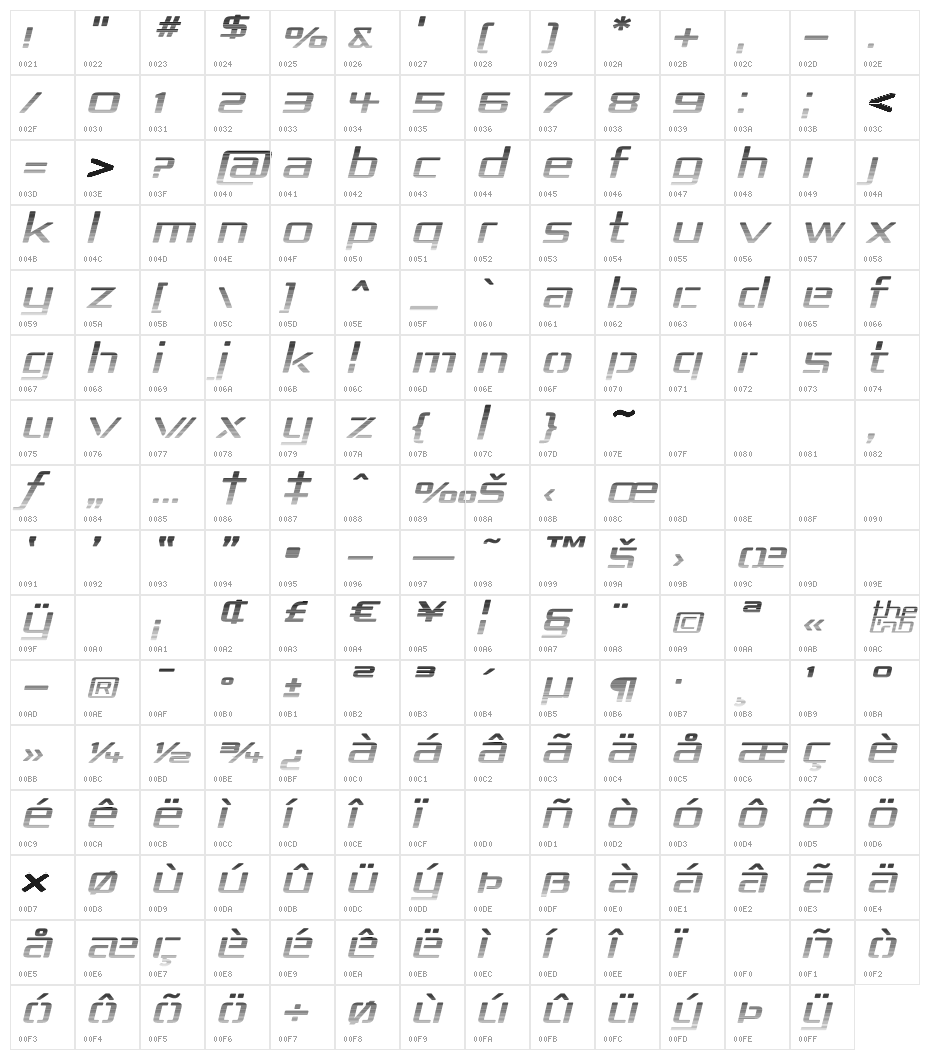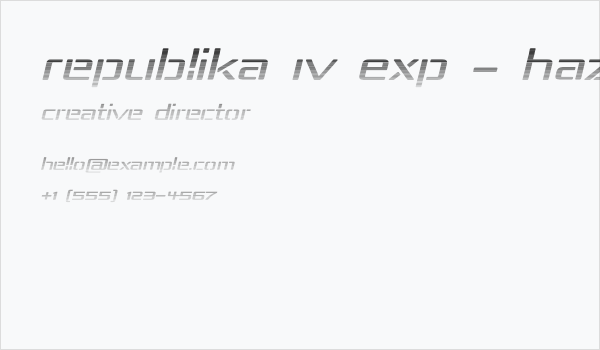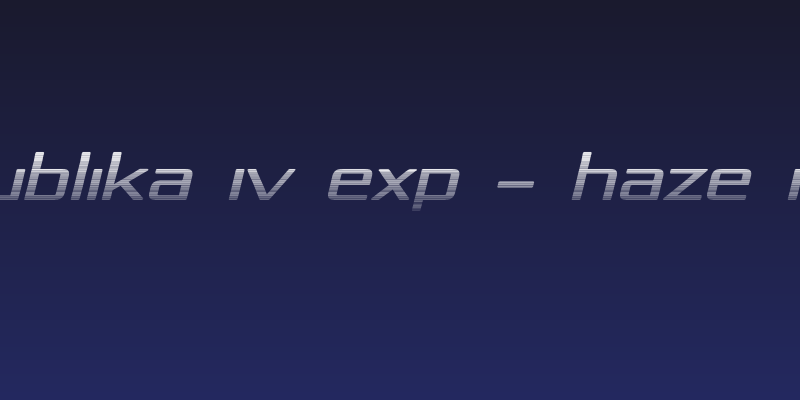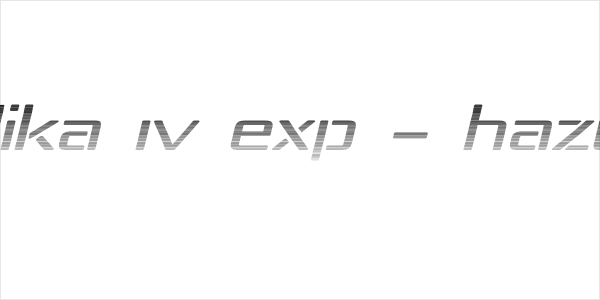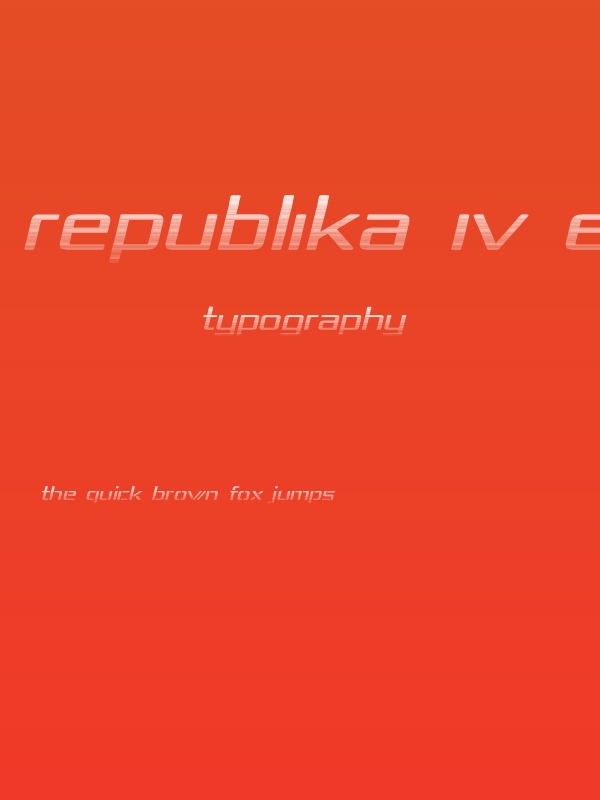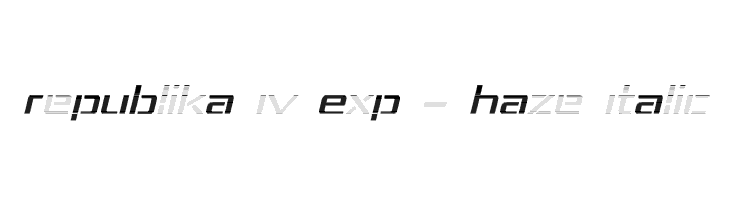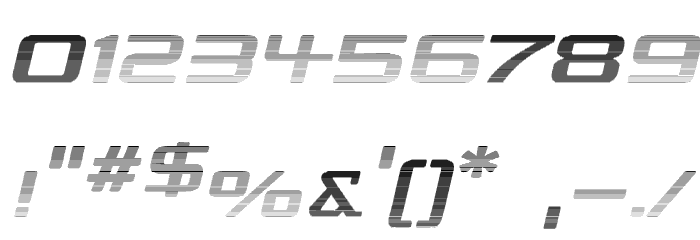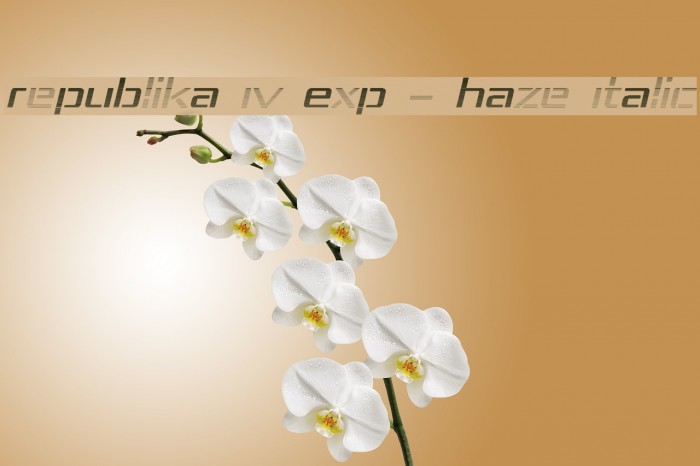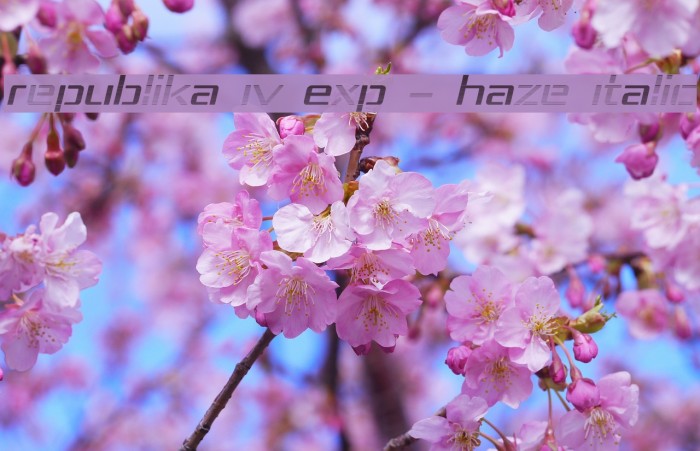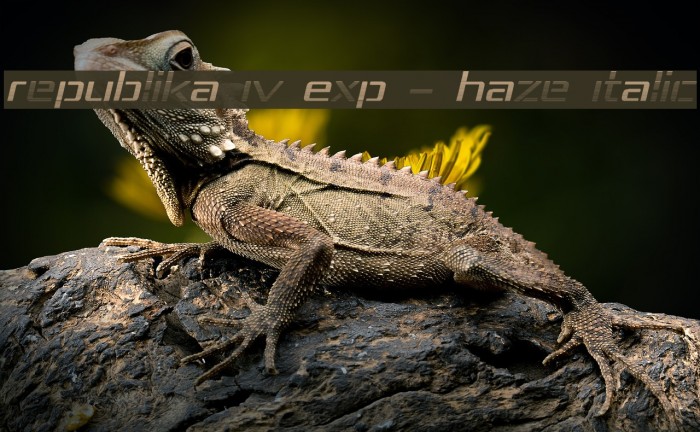
Republika IV Exp - Haze Italic Font
Republika IV Exp - Haze Italic Description
This font features a futuristic and dynamic design with a slanted, italicized style that gives it a sense of motion and speed. The characters are composed of geometric shapes with sharp angles and clean lines, creating a modern and sleek appearance. The use of varying line thicknesses adds depth and a three-dimensional effect to the text. The overall design is consistent across both uppercase and lowercase letters, as well as numbers and special characters, maintaining a cohesive look. The font's unique style makes it stand out, ideal for projects that require a contemporary and edgy aesthetic.
| Overall Style | Futuristic, Dynamic |
| Proposed Projects | Ideal for technology branding, sci-fi posters, video game titles, and modern advertising. |